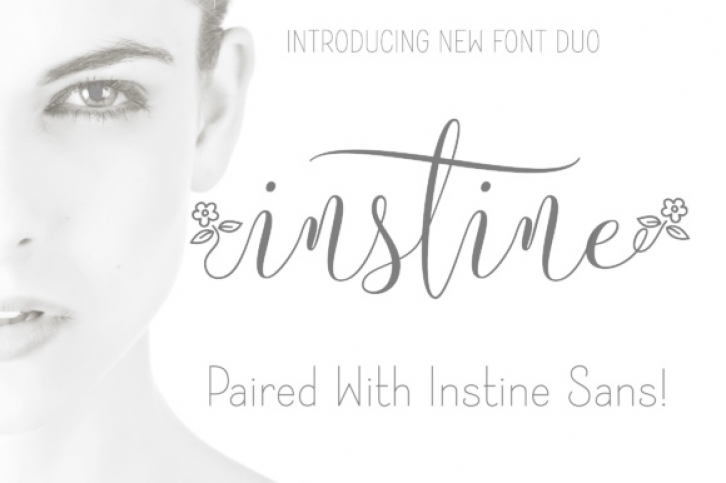
Instine is a gorgeous and elegant calligraphy script, ideal for use in a wide range of projects. This modern calligraphy script comes with a stylish sans serif so you can create highly complementary typographic works.